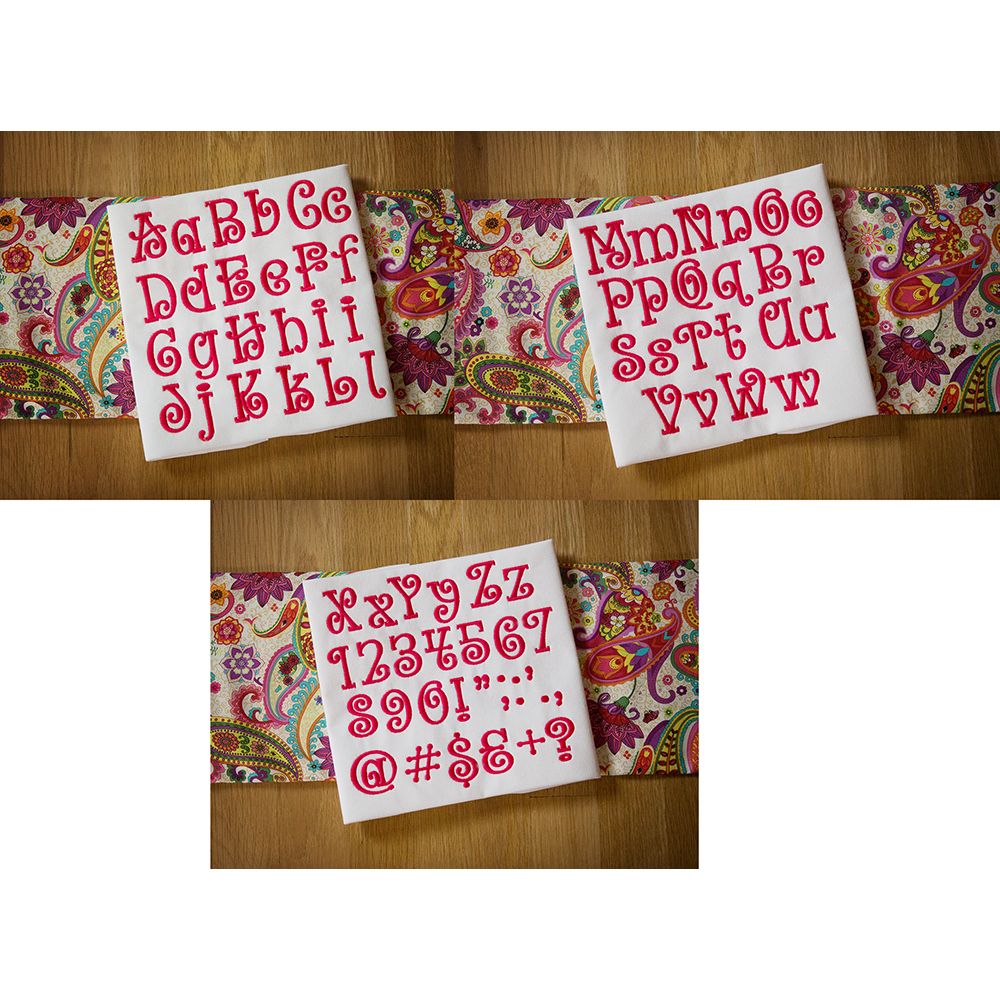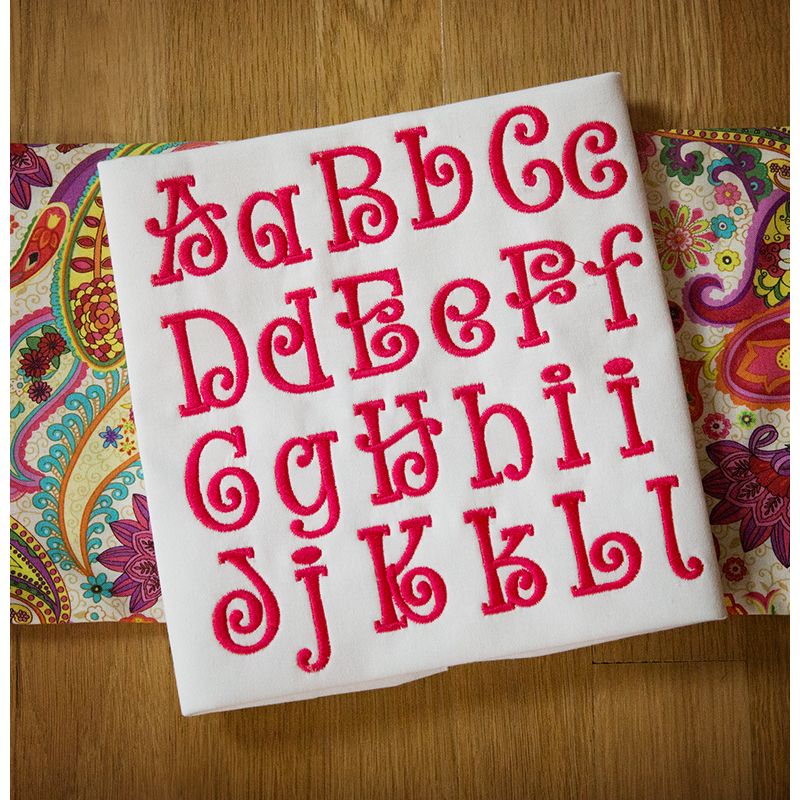
Whimsy Curls Satin Stitch Embroidery Font
A seriously cute, curly and whimsical font! Will be great for the holidays! All of our font alphabets are 100% manually digitized to bring you maximum stitch quality.